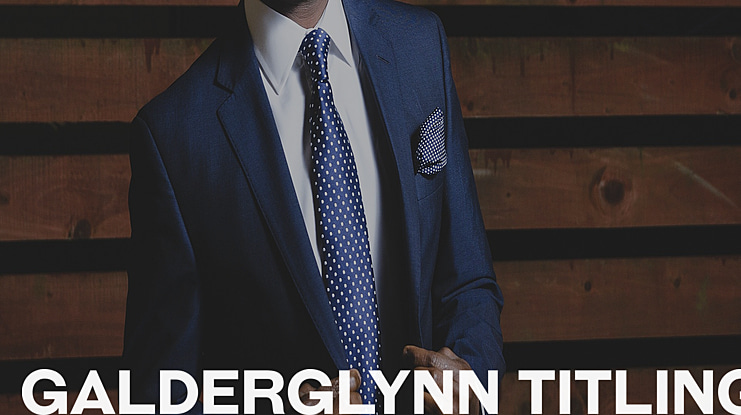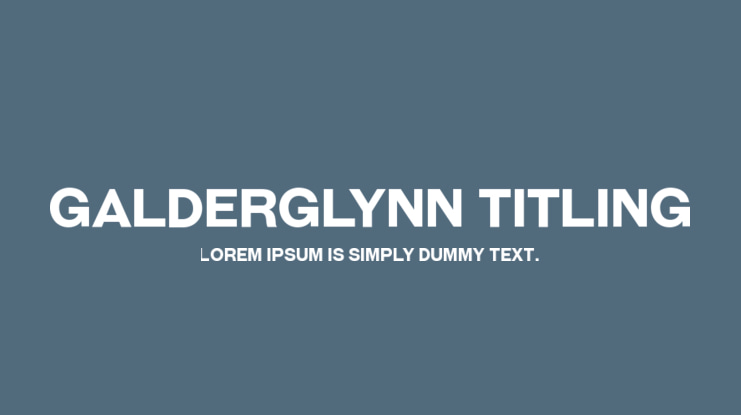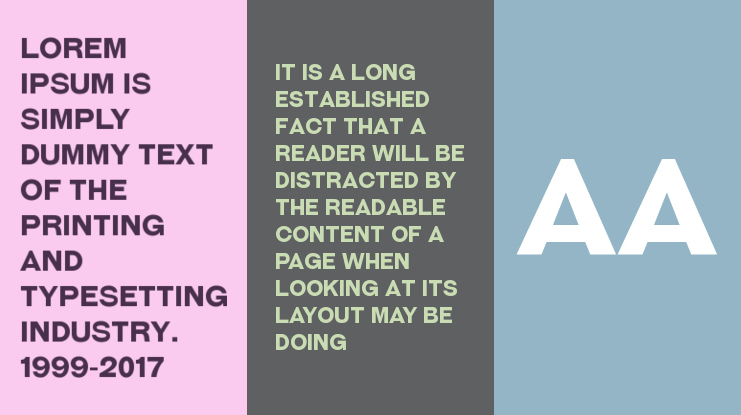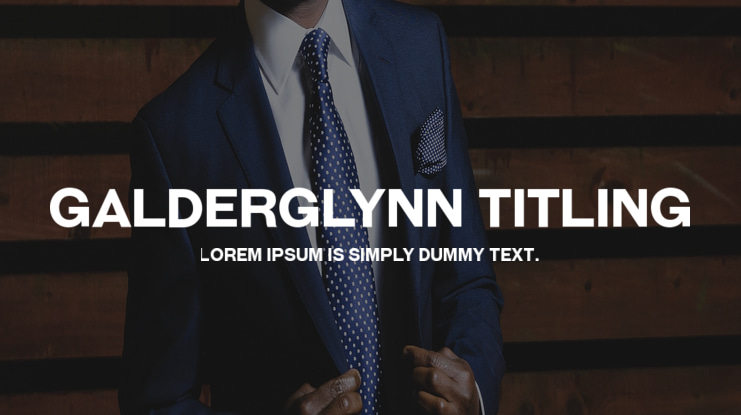
Galderglynn Titling Font Family
Ray Larabie
Galderglynn Esquire is a bag of assorted 19th Century metal type. For a version with lowercase, check out Galderglynn Esquire.